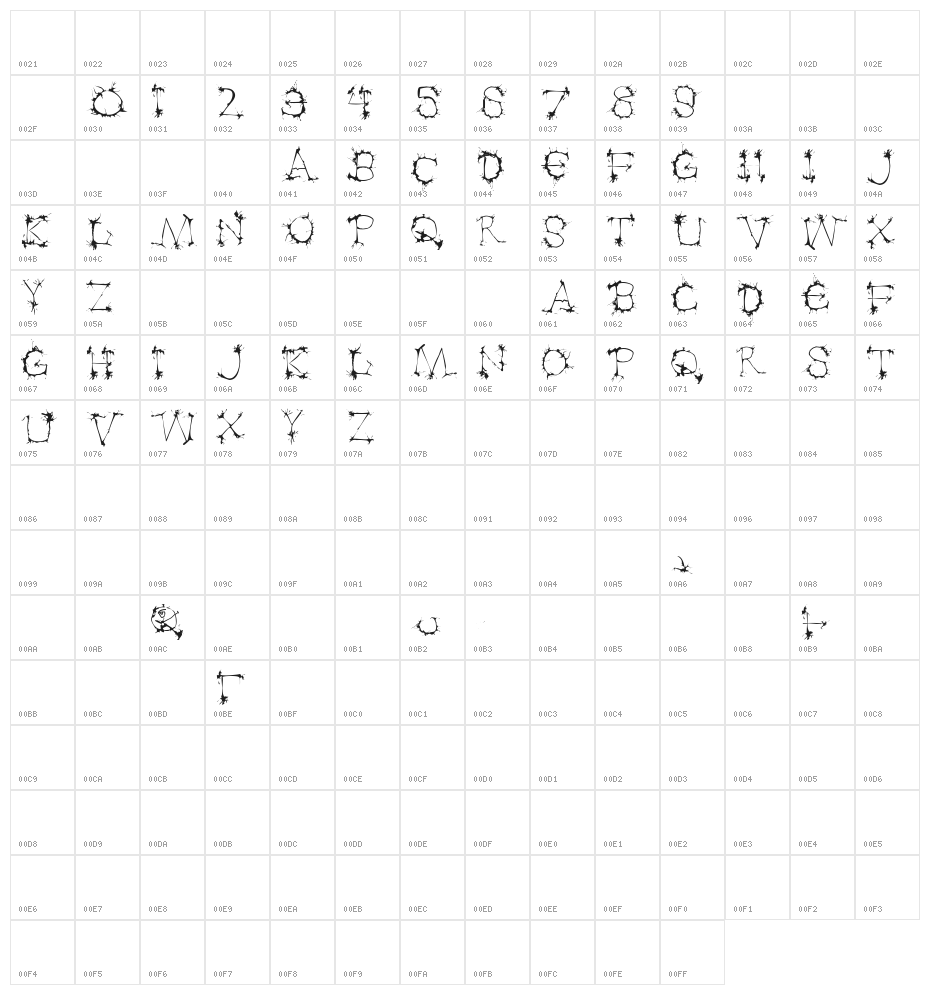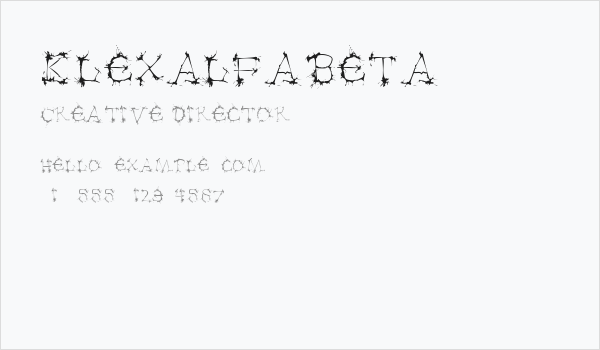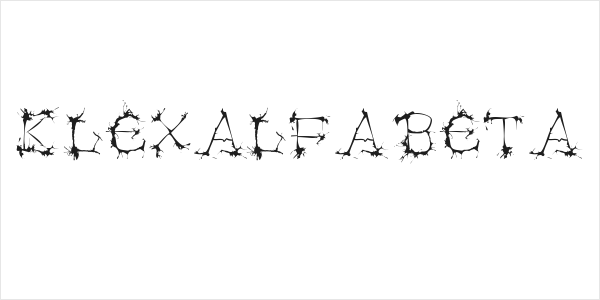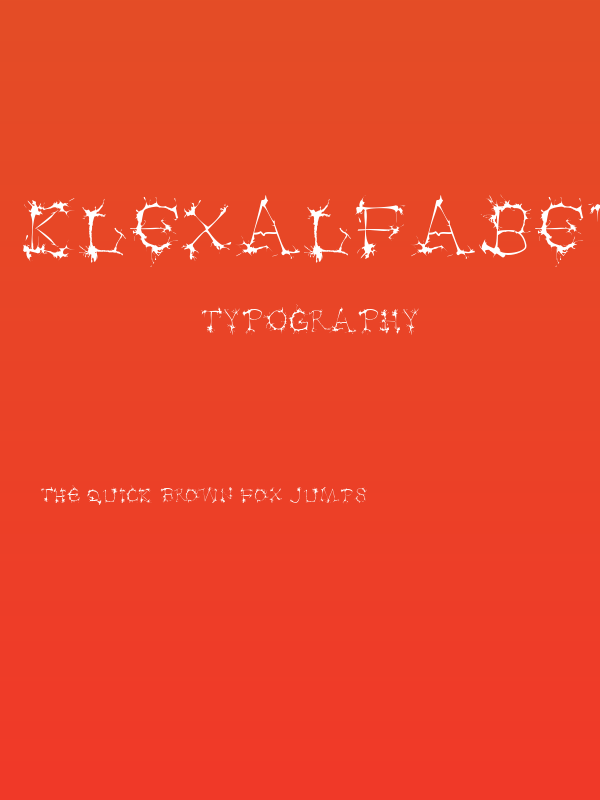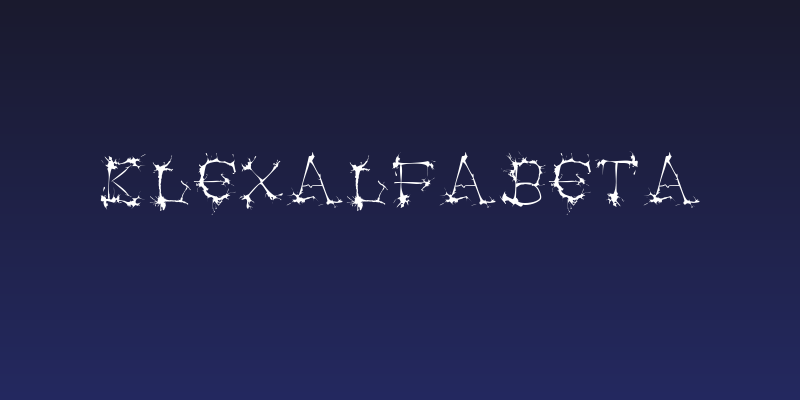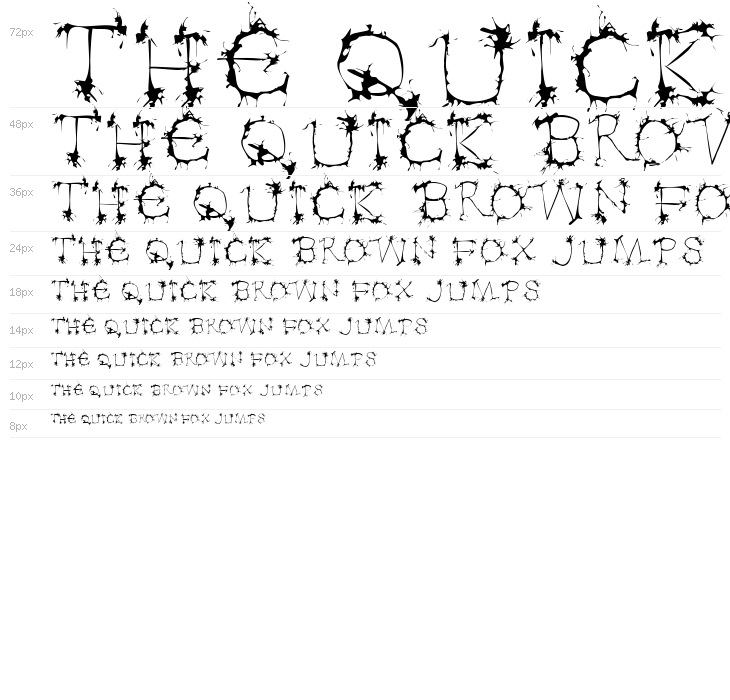
Klexalfabeta Font
Klexalfabeta Description
This font features an intricate and decorative style, characterized by thorn-like embellishments that extend from the main strokes of each character. The design gives an organic and somewhat gothic appearance, reminiscent of tangled vines or barbed wire. Each letter maintains a consistent structure, with sharp, pointed extensions that add a unique flair. The font's overall aesthetic is both captivating and slightly edgy, making it suitable for projects that require a dramatic or mysterious touch. The uppercase and lowercase letters are equally detailed, ensuring a cohesive look across different text cases. The numbers and special characters follow the same design principles, ensuring uniformity throughout the font.
| Overall Style | Gothic, Decorative |
| Proposed Projects | Ideal for Halloween-themed designs, gothic posters, album covers, or any project needing a dramatic and mysterious typeface. |